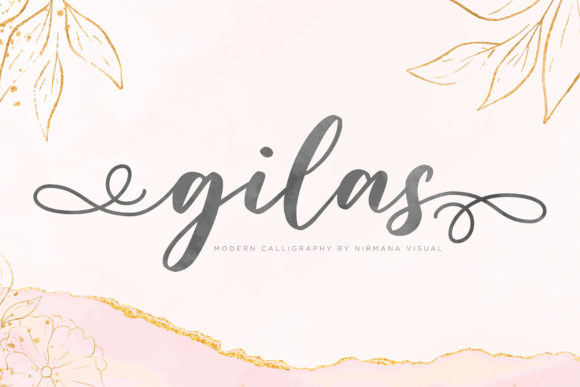
Introducing Gilas Font, the calligraphic masterpiece that weaves the timeless elegance of traditional scripts with the charm and authenticity of handwritten artistry. Carefully crafted by the skilled hands of Sigit Dwipa, Gilas is not just a font; it's an experience that captures the essence of handwritten beauty.
Step into a world of elegance where every letter dances with grace and every word blooms with artistic flair. Gilas' meticulously designed curves and flowing strokes evoke a sense of sophistication and charm that's sure to make your projects shine. Whether you're designing wedding invitations, creating logos, or crafting heartfelt personal messages, Gilas is your perfect companion.
Gilas is more than just a font; it's a versatile tool that empowers you to express your creativity in countless ways. Its classic style and friendly feel make it perfect for adding a touch of elegance to any project, from formal invitations to whimsical personal notes. Let Gilas guide you into a realm of creative possibilities where your designs come alive with timeless beauty and authentic charm.
If you seek a font that embodies elegance, authenticity, and timeless beauty, Gilas is your perfect choice. Its versatility and classic style make it an indispensable tool for any designer or creative professional. Embrace the magic of Gilas and watch your projects transform into works of art.
Key features of Gilas Font:
- Exquisitely crafted handwritten script font
- Timeless elegance and authentic calligraphy style
- Perfect for wedding logos, invitations, and personal messages
- Versatile for a wide range of design projects
- Embodying elegance, authenticity, and timeless beauty